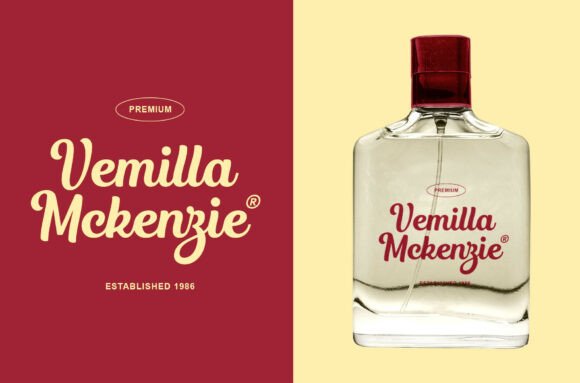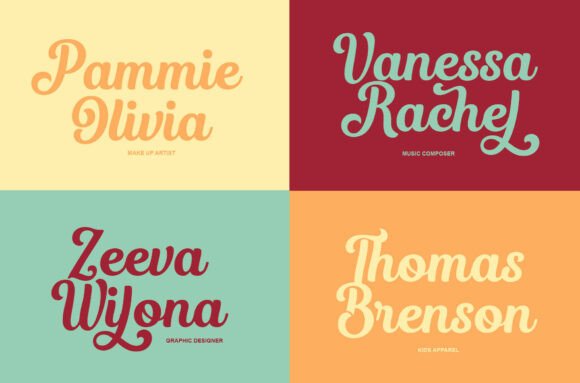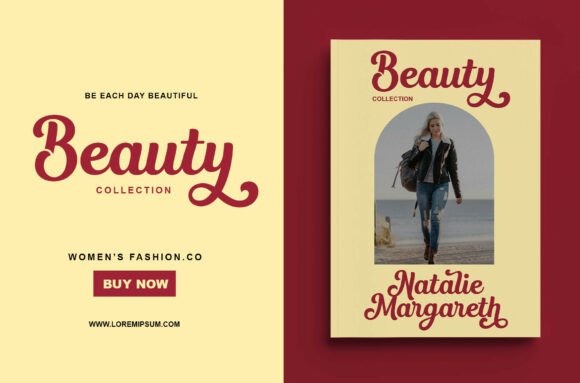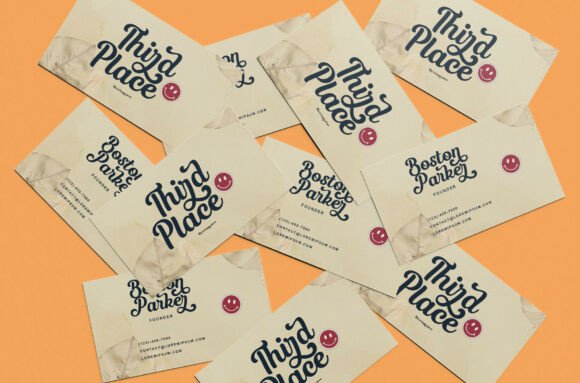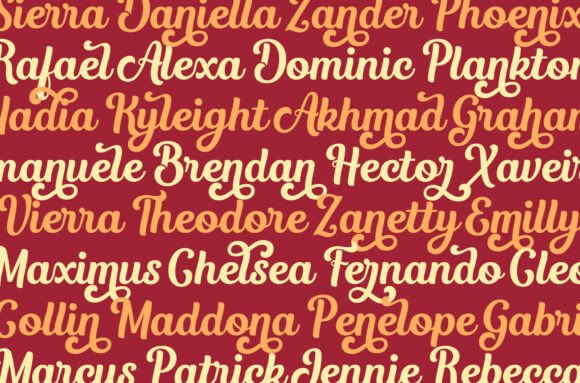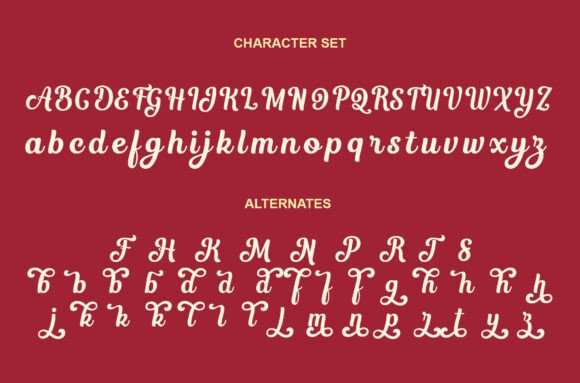
Introduction to Omind Font
You’ve got a creative project in mind, but the perfect design element is missing – a font that embodies the essence of a bygone era. As you scroll through design resources, you stumble upon Omind Font, a premium vintage script font that instantly transports you to the golden age of design.
Imagine the warm glow of a classic diner, the nostalgic charm of a vintage typewriter, or the timeless elegance of a mid-century logo. Omind Font captures the soulful, hand-lettered aesthetic of mid-century Americana with its substantial weight and rounded terminals. Whether you’re designing for a heritage brand or a modern shop with a throwback vibe, Omind Font delivers a high-quality look that’s perfect for retro branding, classic logotypes, and vintage-style packaging.
Omind Font
- High-quality design resource ideal for creative projects, offering a unique and stylish touch.
- Features a modern and sleek design, perfect for use in logos, typography, and other creative applications.
Honest Review: Omind Font
I recently came across the Omind Font, and I must say it’s a solid addition to any designer’s toolkit. As a creative project, I appreciate how versatile this font can be.
- What works well: ✨ High-quality glyphs, extensive language support, and a modern aesthetic make it a great choice for digital design projects.
- What works well: ✨ The transparent background feature allows for seamless integration with any design element, giving you more flexibility when working on a project.
- ⚠️ Limited customizability, which might be a drawback for designers who prefer a more personalized look.
- ⚠️ Not ideal for print-based projects, as the font’s digital focus may not translate well to physical media.
Overall, the Omind Font is a high-quality design resource that’s well-suited for digital projects. While it may have some limitations, its strengths far outweigh its weaknesses, making it a solid choice for designers looking for a modern, versatile font.
The Omind Font is perfect for a variety of creative projects, including: 1) Branding and logos. 2) Infographics and data visualizations. 3) Social media graphics and advertisements.